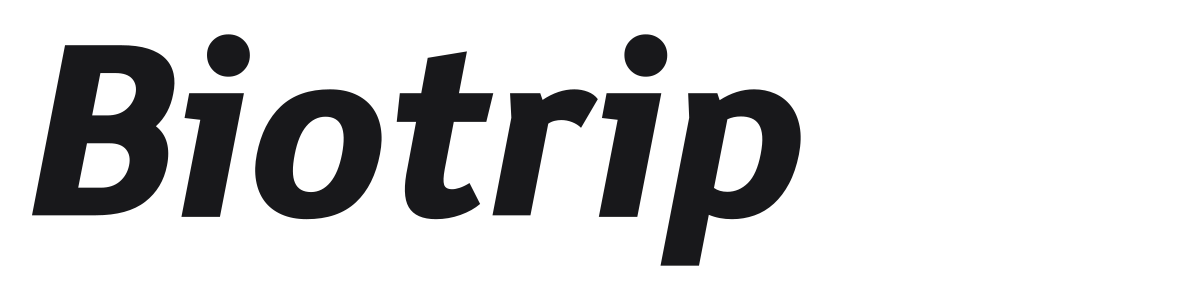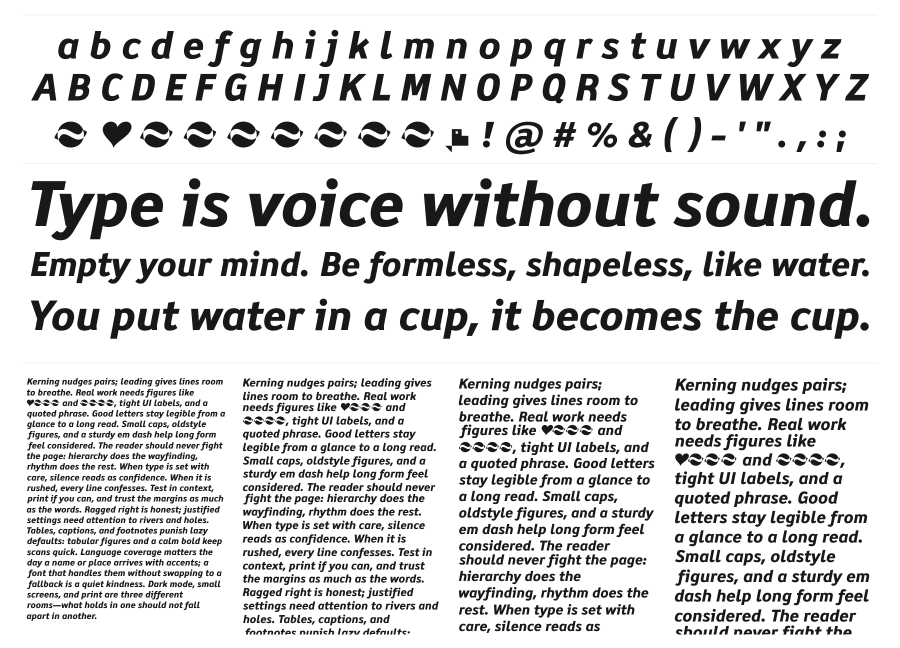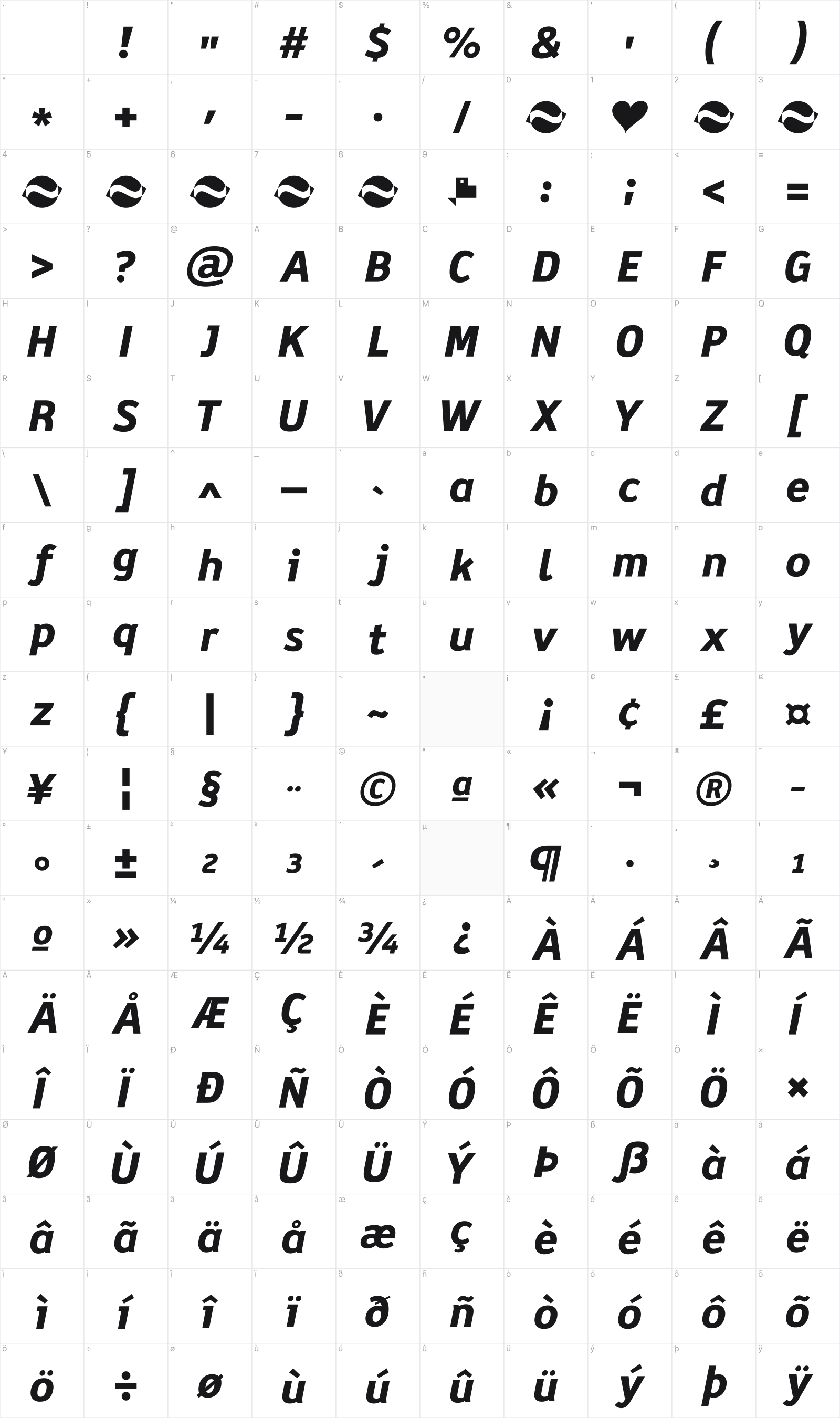
Biotrip
Biotrip is a humanist sans-serif family designed at the intersection of geometric precision and organic warmth. The bold italic weight shown here reveals smooth terminals, generous x-height, and a natural italic construction that flows rather than merely slants. With 14 fonts spanning 7 weights and genuine italics, it has real range for both text and display work.